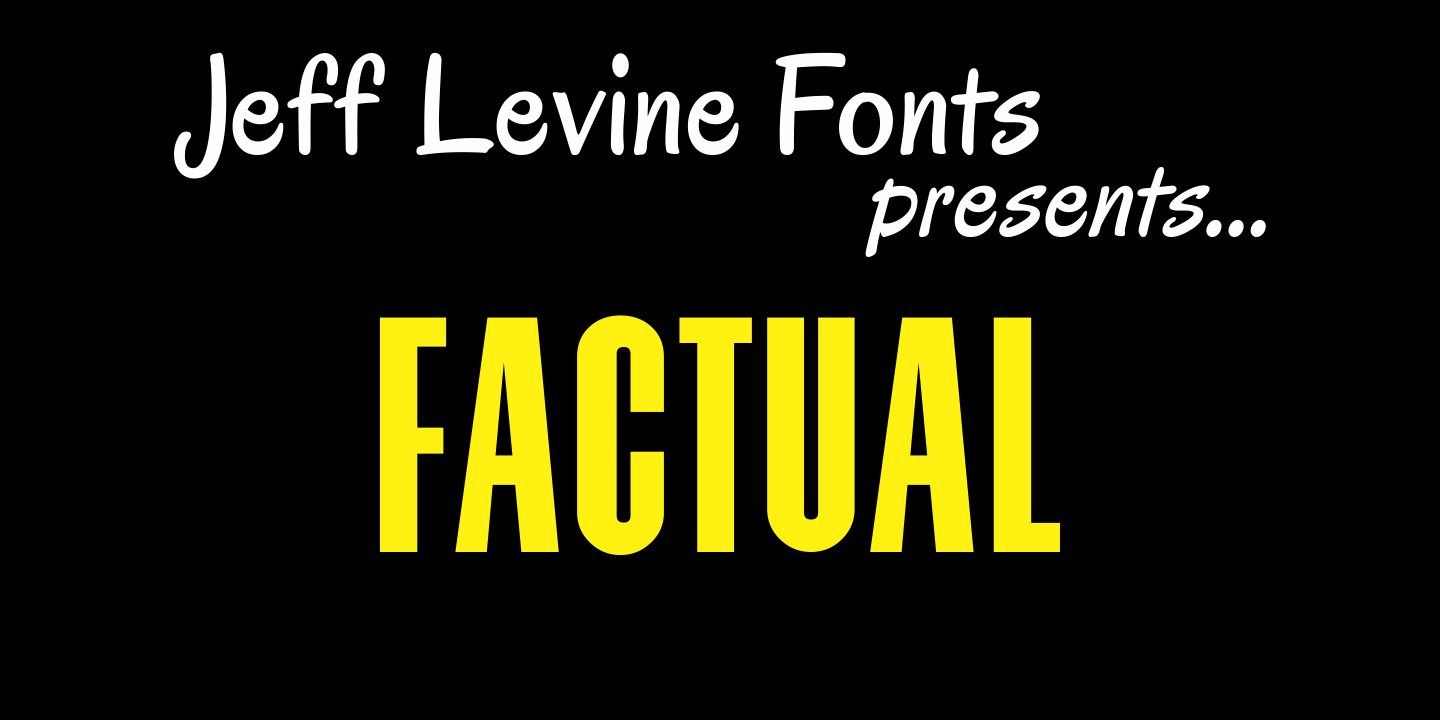
Factual JNL is a display sans font family. This typeface has two styles and was published by Jeff Levine Fonts.
Nothing too fancy here, just your everyday workhorse sans in both regular and oblique versions.
| Foundry | Jeff Levine Fonts |
| Style | Display Sans |
| Designer | Jeff Levine |